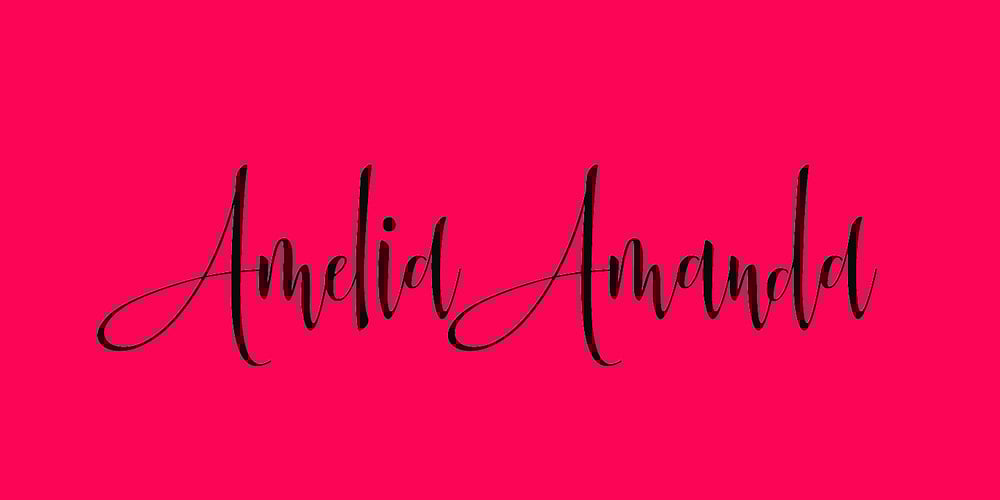
Amelia Amanda Font Family was designed by Muhammad Akbar and published by Sinfa. Amelia Amanda contains 1 styles and family package options. Amelia Amanda calligraphy script that comes with a very charming fancy character, in the form of results but looks modern, made with inspiration to get a beautiful style and match between one and the other letters. Amelia Amanda belongs to a unique font type, feminine , sensual, clean, glamorous, simple and very charming to look at, due to the unique form of letters and alternative styles that are appropriate for many letters. Classic style is very suitable to be applied in various formal forms such as invitations, labels, restaurant menus, logos, fashion, makeup, stationery, novels, magazines, books, pride greeting cards as well as weddings, packaging, labels and also suitable for all forms of advertising . The Amelia Amanda script is very feasible because it is supported by some charming alternative letters.